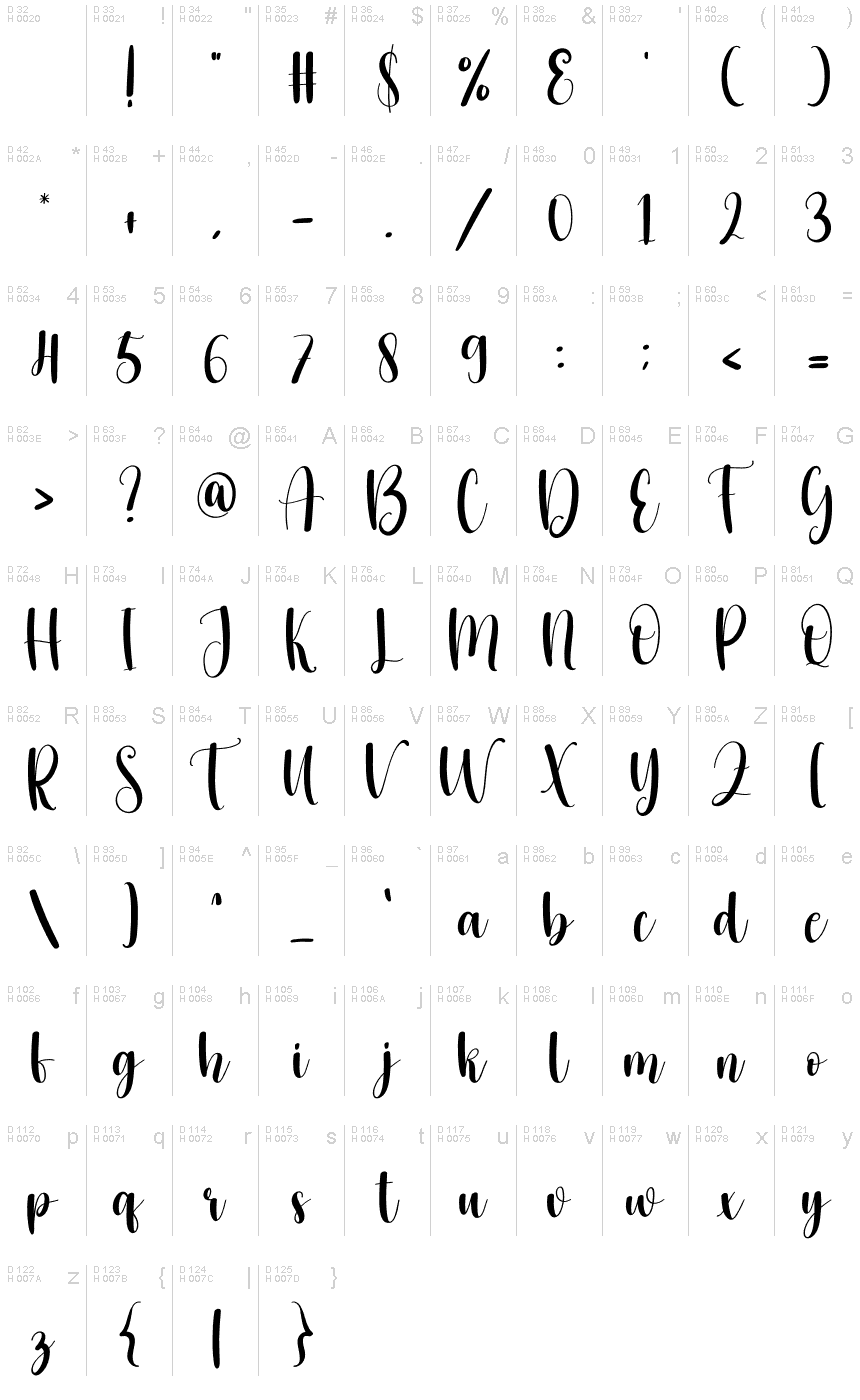
Turkey
Turkey, a stunning calligraphy font designed by scratchones, adds an elegant touch to your creative projects. With its semi-light weight and semi-condensed width, Turkey is perfect for adding a refined flair to invitations, greeting cards, and wedding stationary. Its intricate curves and flowing strokes make it ideal for logos or branding materials that require a touch of sophistication. Use Turkey in blog headers or social media graphics to draw attention while maintaining readability. Whether you're designing for print or digital media, Turkey's calligraphic style is sure to impress.
the latest style letters are perfect for wall displays, wedding invitations, social media post logos, advertisements, product packaging, product designs, labels, photography, watermarks, invitations, stationery, and any project that requires taste handwriting.